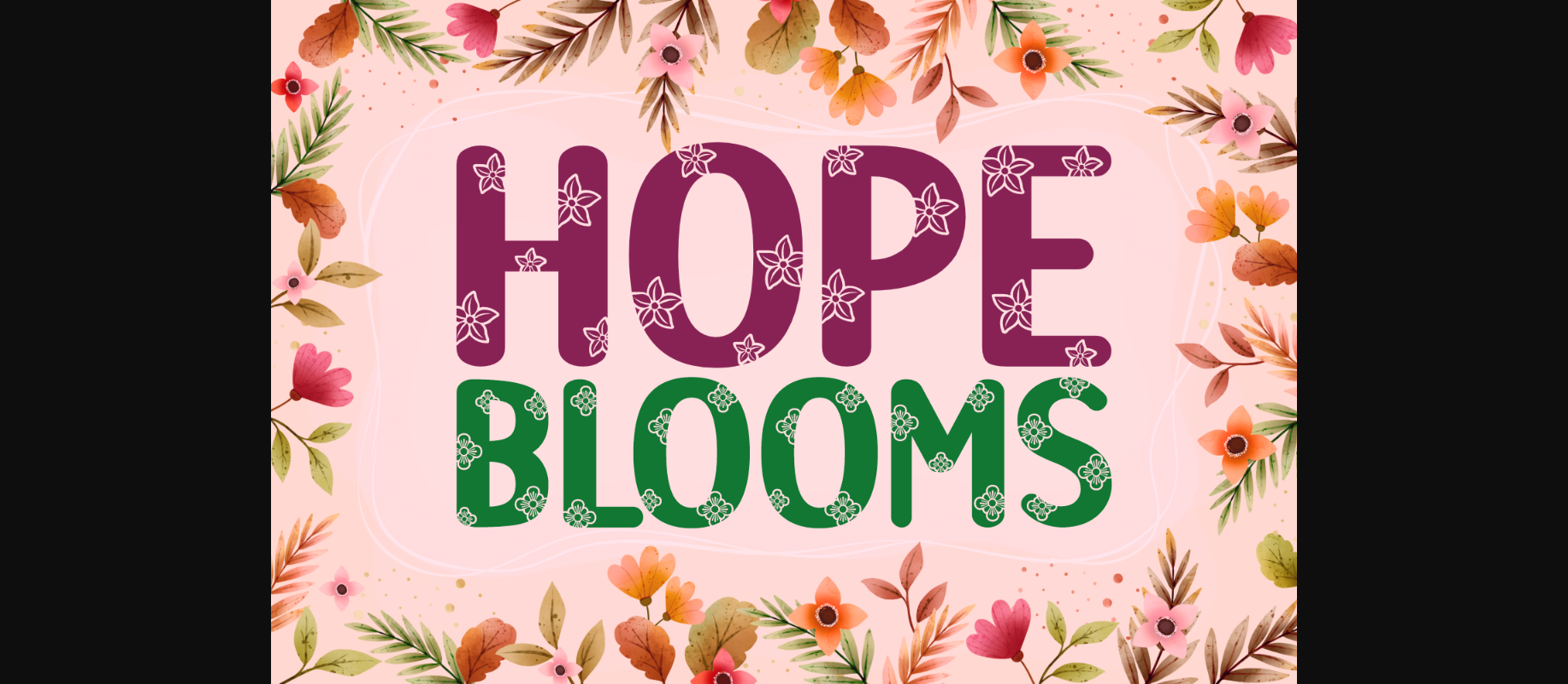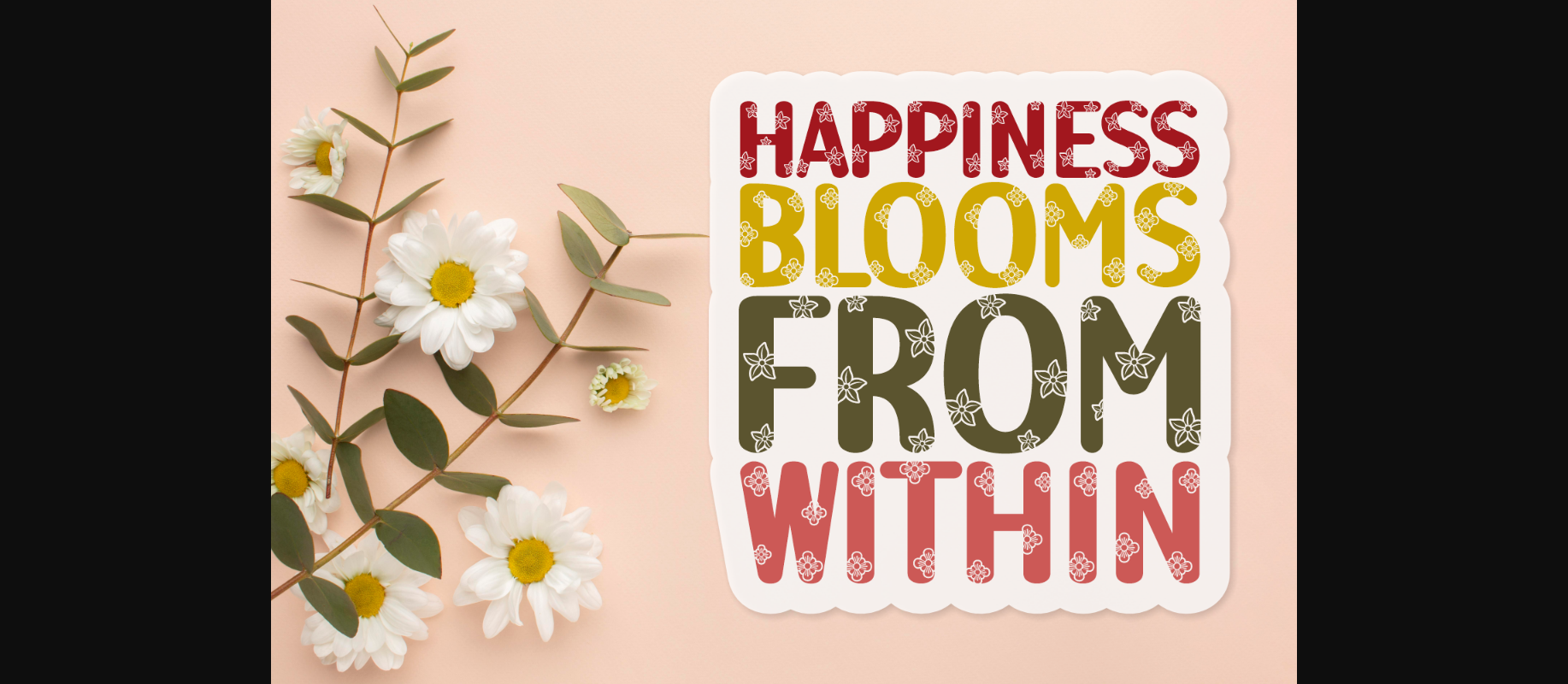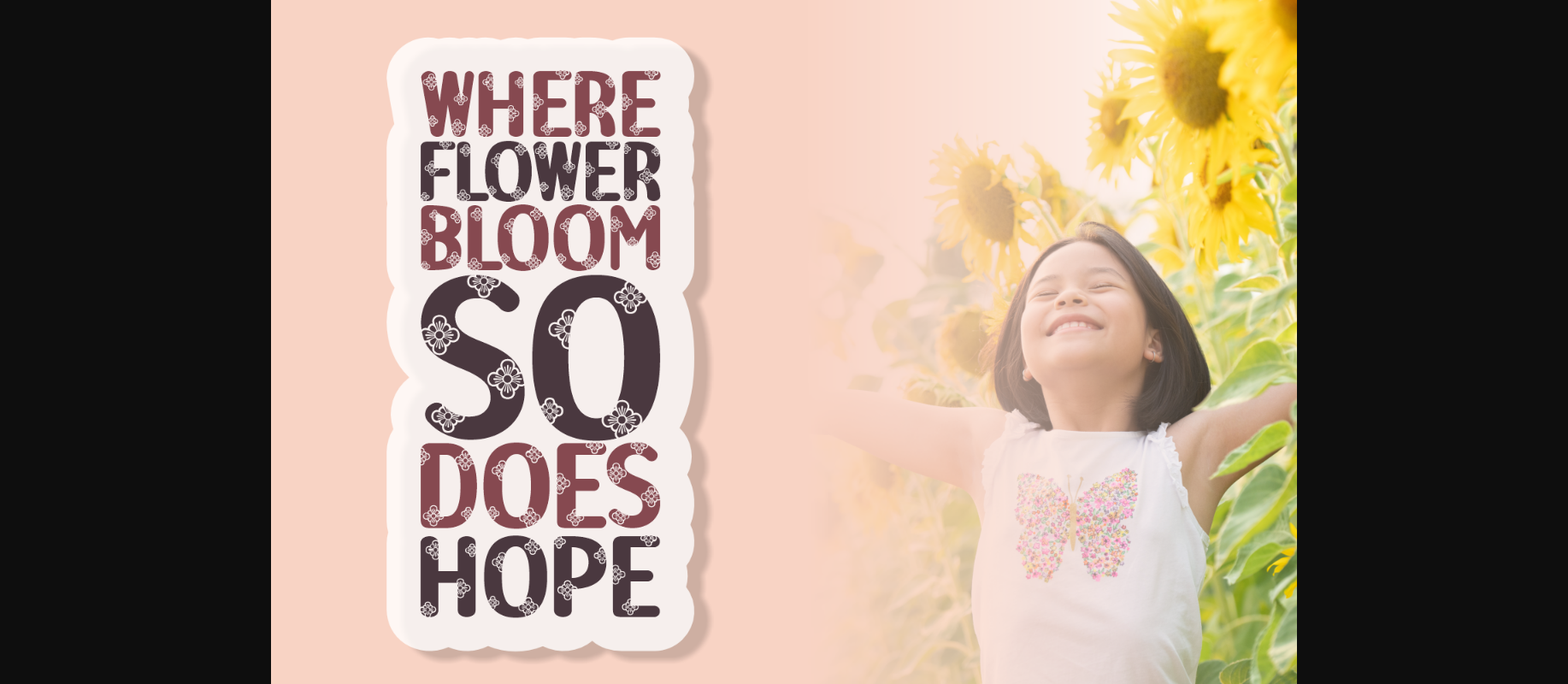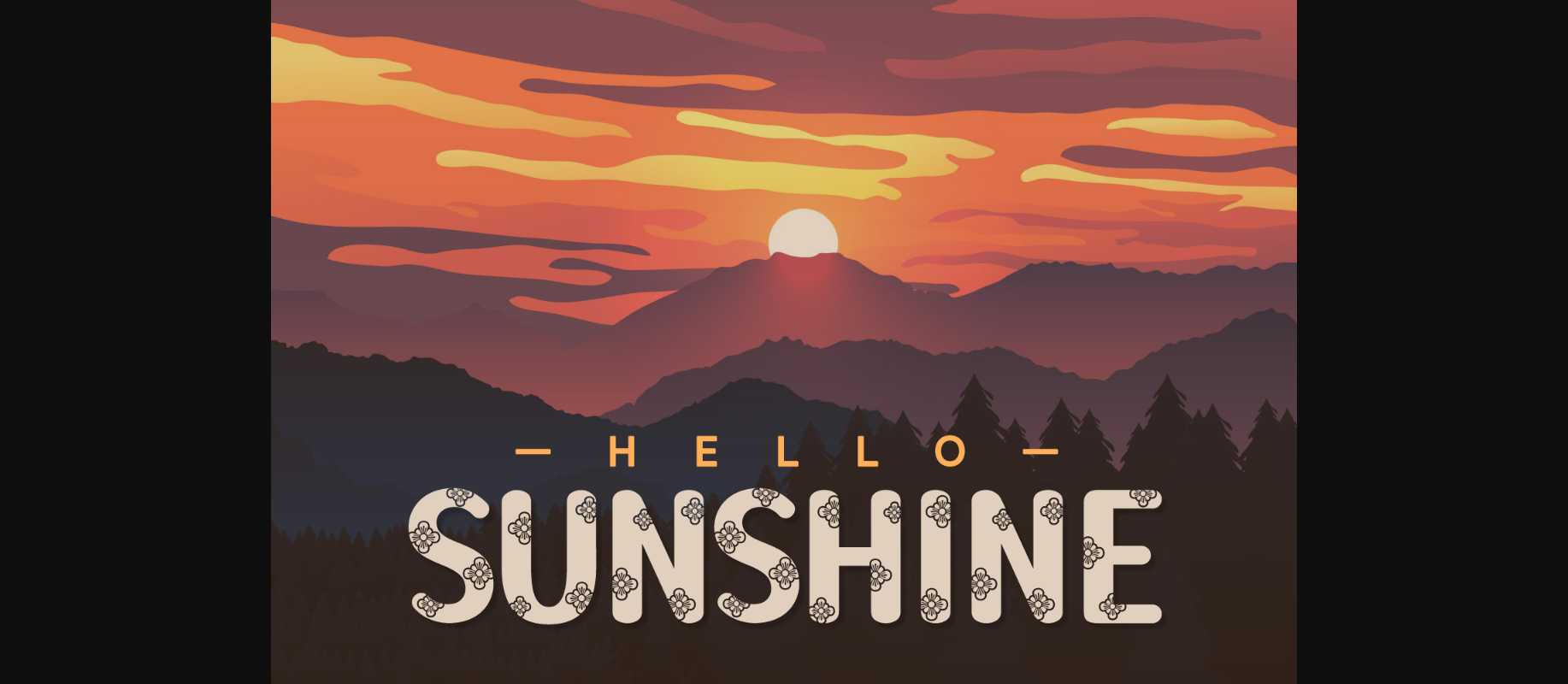
About Hope Blooms Font
Hope Blooms is a spring-inspired decorative font. Each set of characters features beautiful floral details. Mix them with bright or pastel colors and create gorgeous Easter cards, spring wall arts, decorations, t-shirts, quotes, flower shop branding, etc.